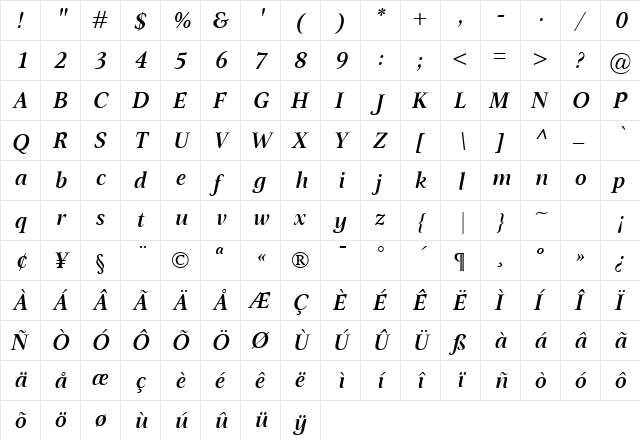
Omnibus SemiBoldItalic
Design Context for Omnibus Typeface
Omnibus offers clean, dependable letterforms without strong stylistic allegiance, making it a practical choice for designers who need flexibility. The slanted form adds forward momentum and visual energy. Its bold stroke weight gives it real presence on the page.
Pro Tip: Use Omnibus for emphasis, pull quotes, and subheadings where its slanted energy can add rhythm to the layout.